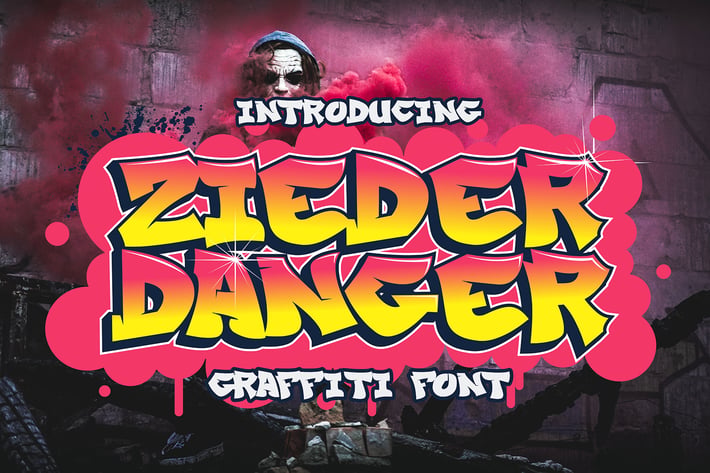
Zieder Danger - awesome Graffiti Font
This font designed so that users can use it more easily and make graffiti designs easier. Zieder Danger is very suitable for use in various media such as; packaging, logos, labels, posters, shirt designs, bulletins, typography, and many other media, especially with graffiti look.
All Caps